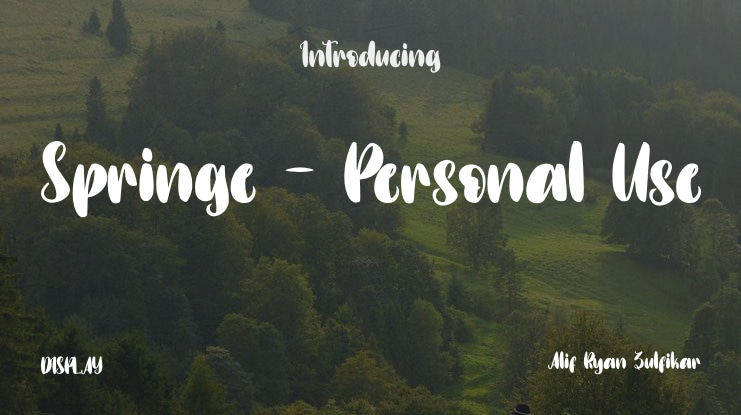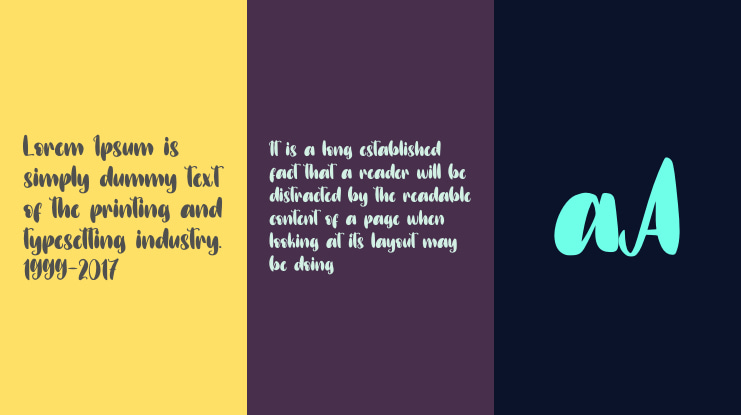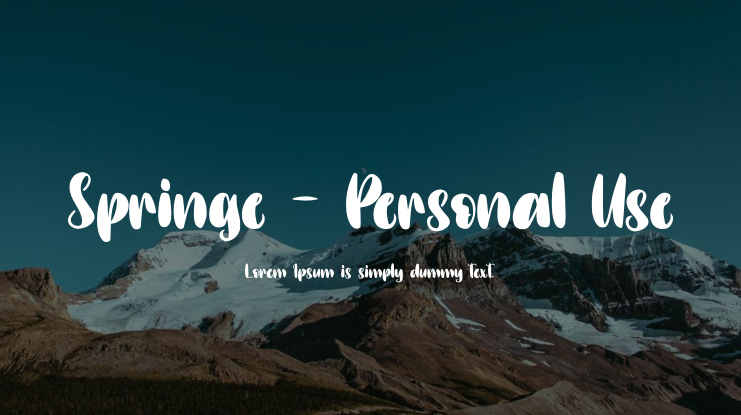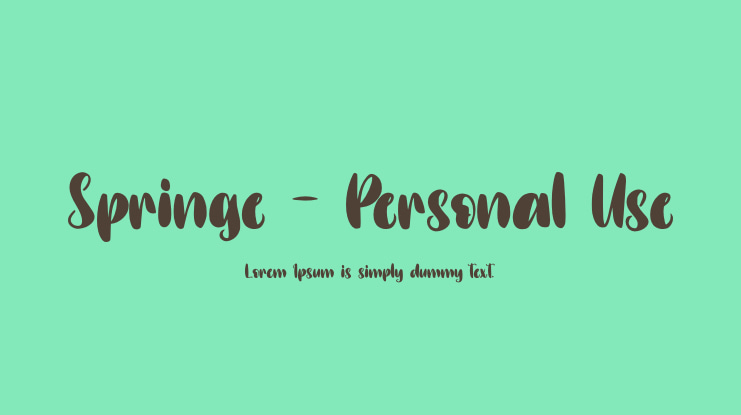
Springe - Personal Use Font
Alif Ryan Zulfikar
Springe is a refreshing handwritten font, inspired by the beauty of spring. With its graceful curves and natural flow, it is perfect for invitations, packaging, and branding. This font adds a vibrant and elegant touch to any creative project.